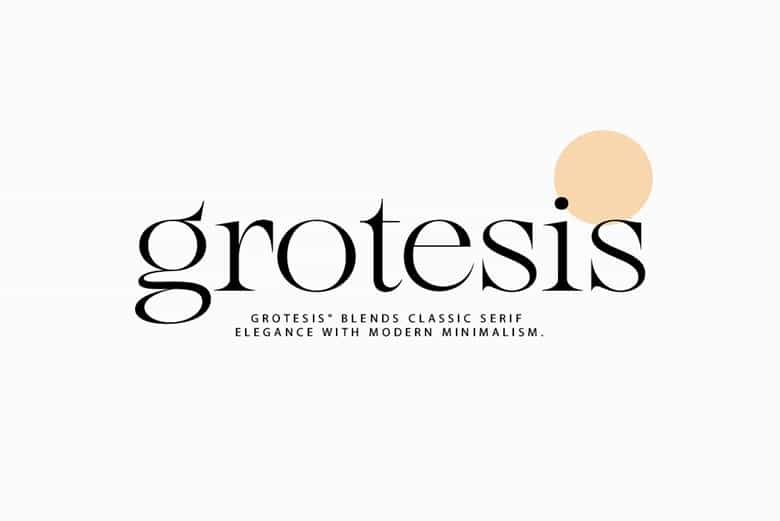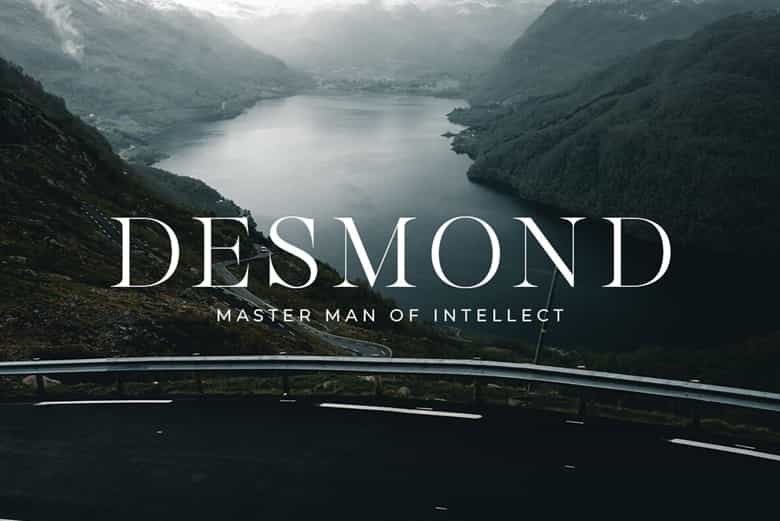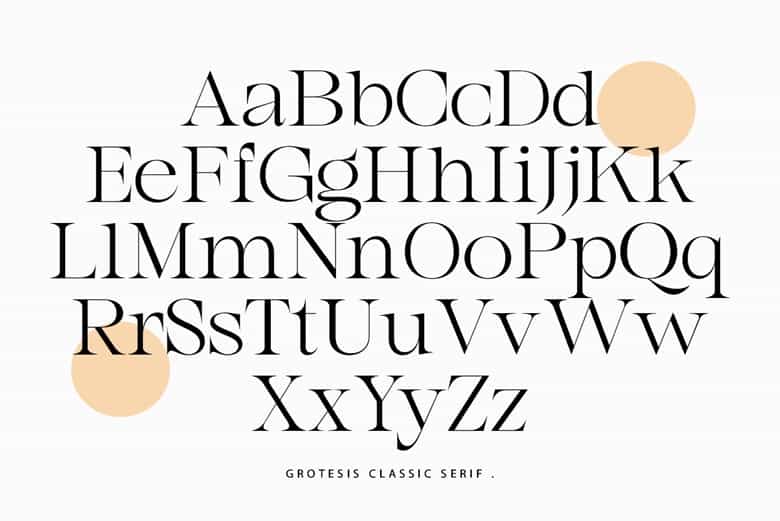
Grotesis is an elegant serif font that takes the best of the classic-fashioned serif fonts and pairs it with the clean lines of today’s design. It has a delicate and elegant stroke and it’s perfect for a wide range of design projects because of its elegance and simplicity.